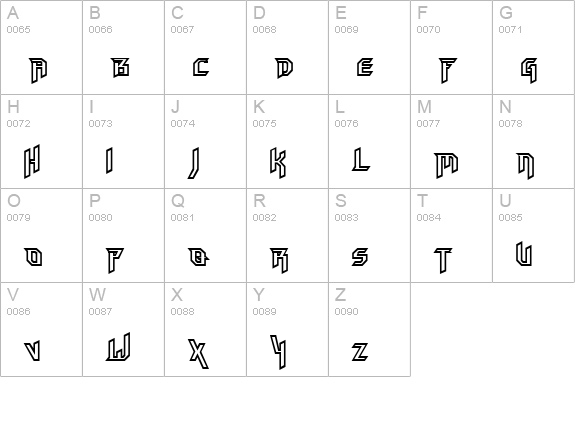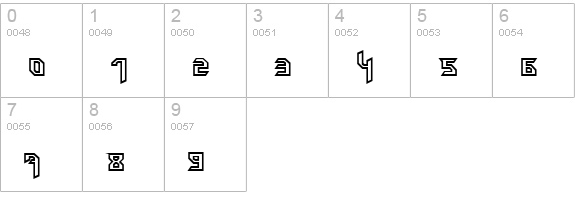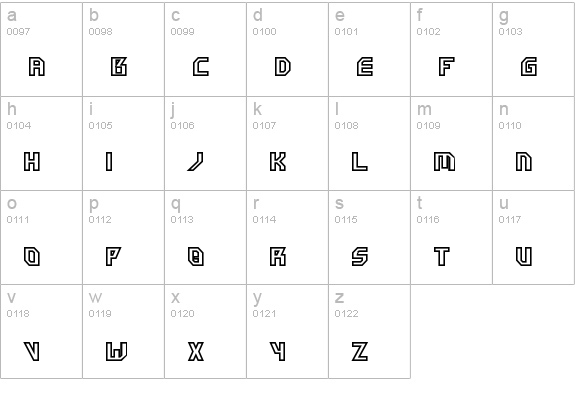
HammerheadOutline font is a stunning typeface that will make your designs stand out from the crowd. With its unique and eye-catching style, this font is perfect for headlines, logos, and any other creative projects you can imagine. The HammerheadOutline font features bold, clean lines with a slight geometric twist. Its sharp edges and distinct angles give it a modern and edgy look, making it a great choice for contemporary designs. What makes HammerheadOutline even more appealing is that it is absolutely free to download. You can easily access this font at FontsMarket.com, a trusted source for high-quality fonts. Whether you are a professional designer or an amateur enthusiast, this font is freely available for everyone to enjoy. With its versatility and stylish appearance, HammerheadOutline font can be used in a wide range of projects. From posters to websites, this font will add a touch of sophistication and modernity to your design. Don't miss out on the opportunity to enhance your creations with this incredible font. Download HammerheadOutline font for free today and let your imagination run wild.